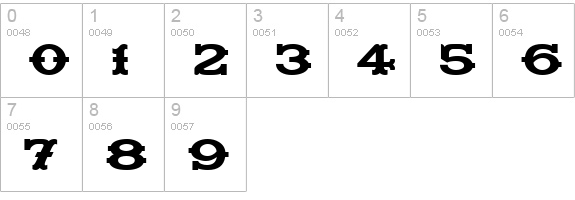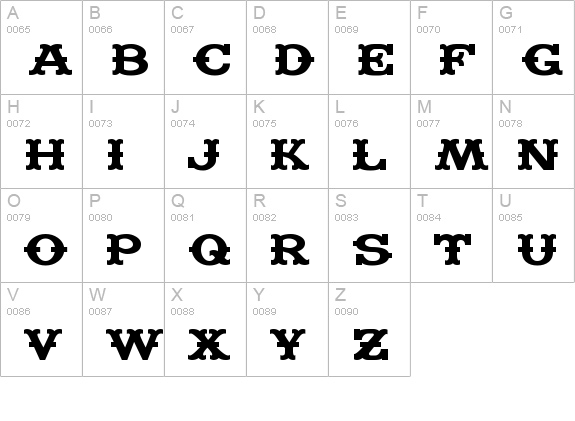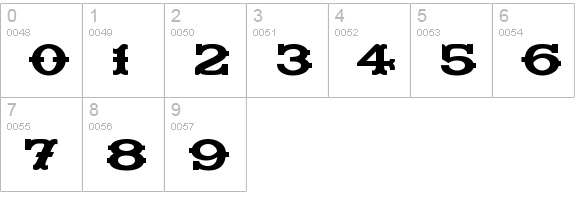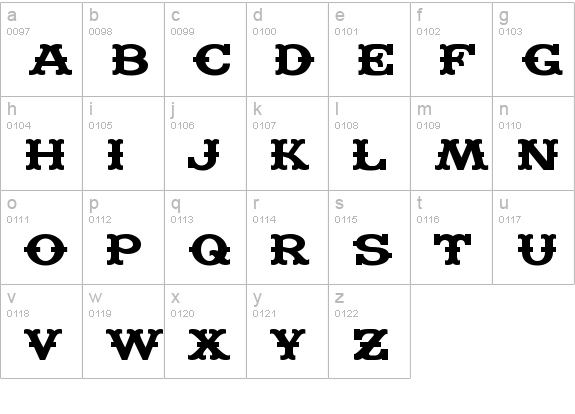
MadfontBars Font Details
MadfontBars is a stylish and modern font that exudes a bold and energetic vibe. With its unique design featuring sleek lines and sharp angles, this font is perfect for making a statement in any design project. Whether you're creating posters, logos, or social media graphics, MadfontBars will add a touch of edgy sophistication. The best part? MadfontBars is available for free download at FontsMarket.com. You can easily access this striking font and elevate your designs without breaking the bank. Embrace the creativity and versatility of MadfontBars to bring your vision to life with a touch of urban flair.